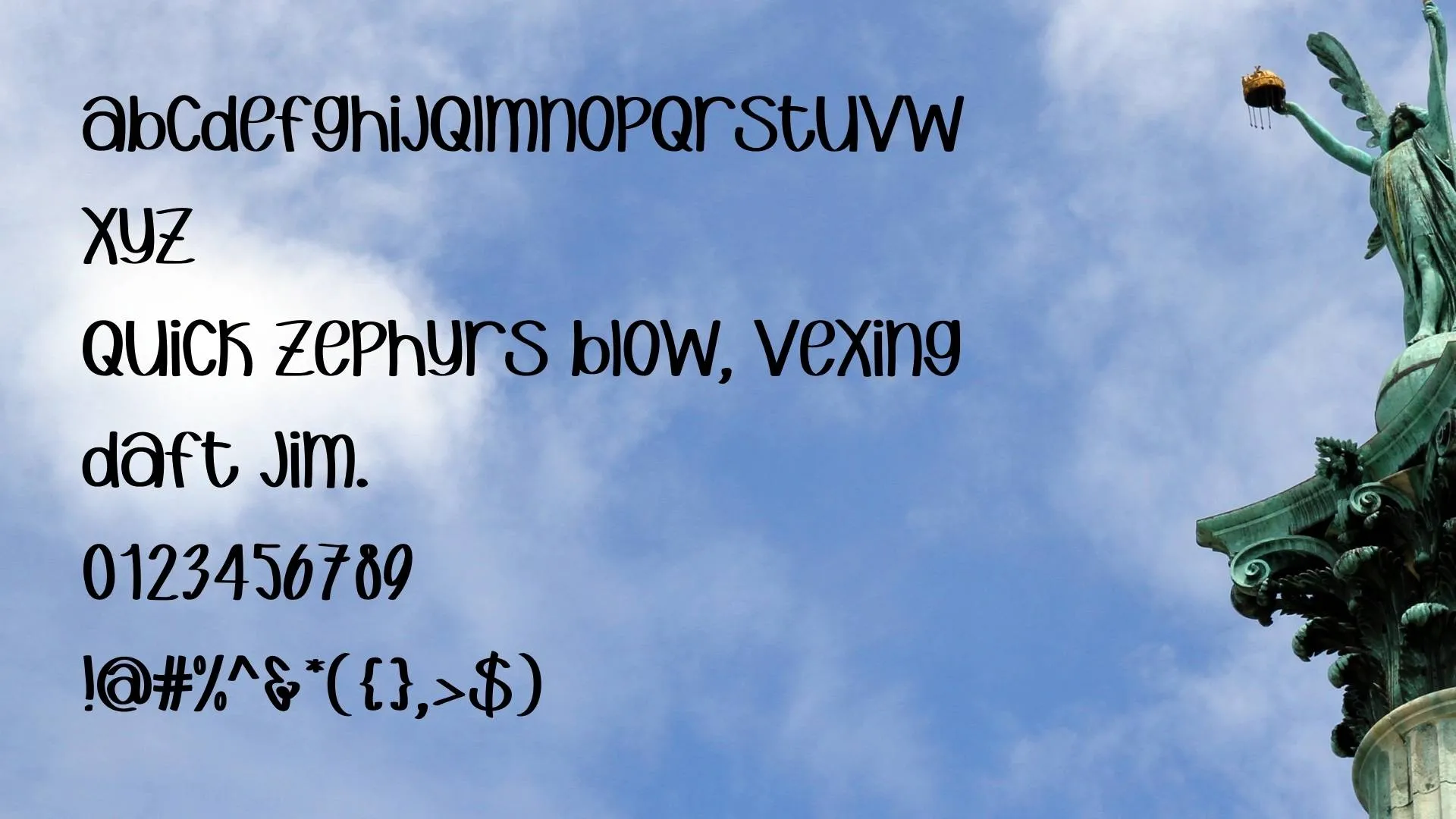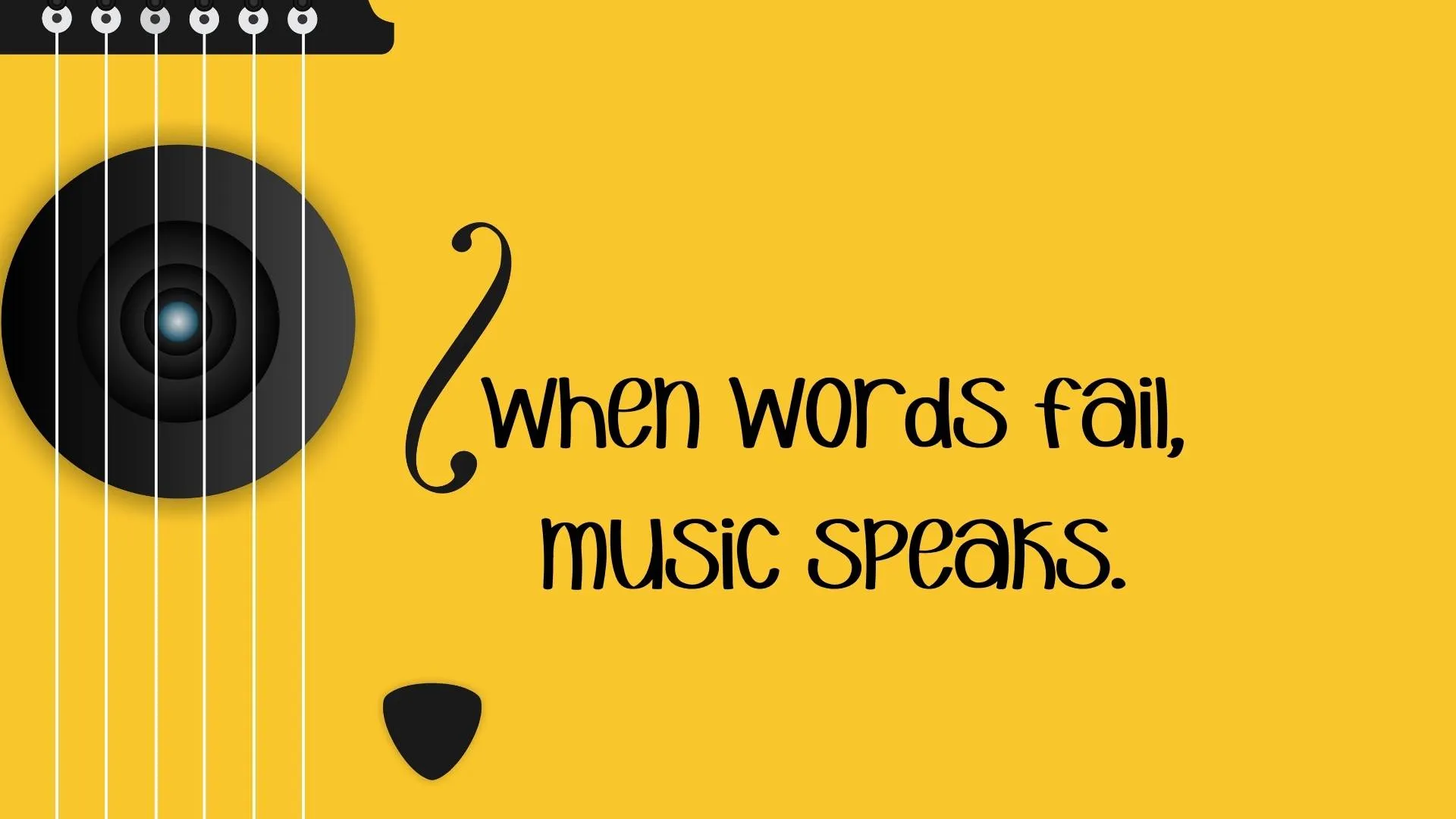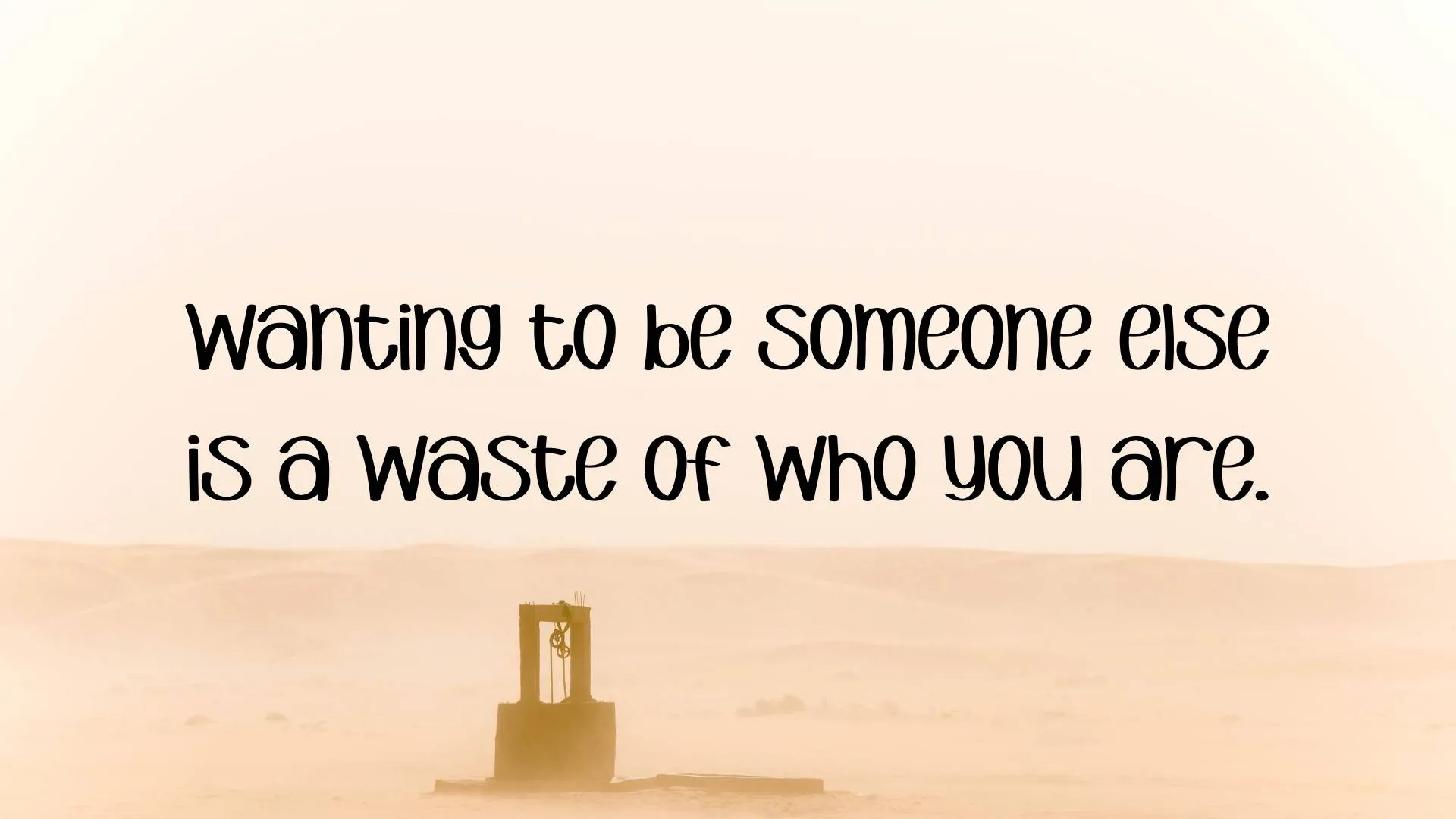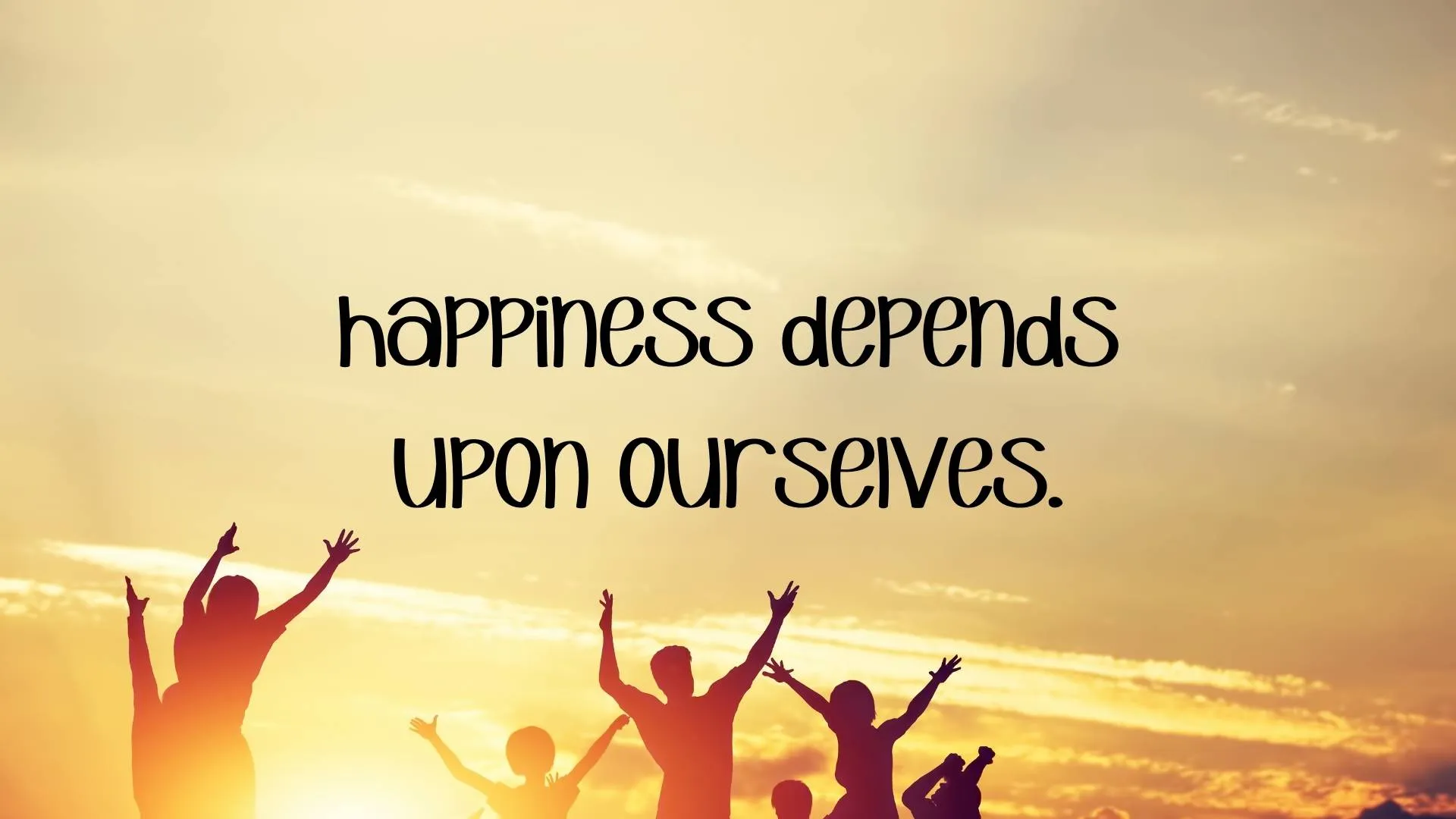
Endeavour Font
Endeavour font is a script typeface font. This amazing typeface font was designed by a famous designer named “Fontles”.Endeavour is a sharp edges typeface with only one regular weight. If you want a typeface that is unique to your project then this is the best choice.
It also looks good with sonic font. With the help of this font, you can make signatures, quotes, and many documents.